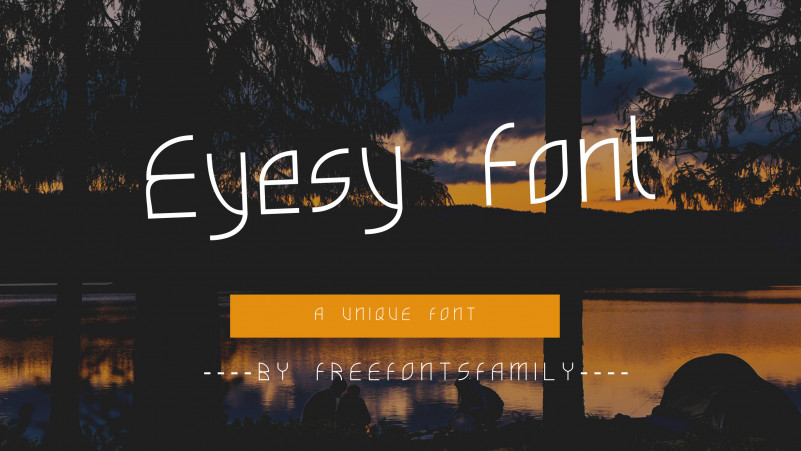
Eyesy Font
Eyesy Display Font
This is one of the best fonts that every designer should try. One of the most significant features that you get is being able to optimize EyesyFont according to your need.
It means that on whatever project you are working, you can always choose Eyesy Font and can pair with any other music or gaming font and it’s all possible because of the facility to optimize the font yourself. Besides this, it has a good readability score that makes it more convenient and useful to apply.
What else it holds? you can apply this font in numerous conditions and situations. Whether you are working on a website or you want a font for your next YouTube video, you can always consider Eyesy Display Font without giving it another thought.